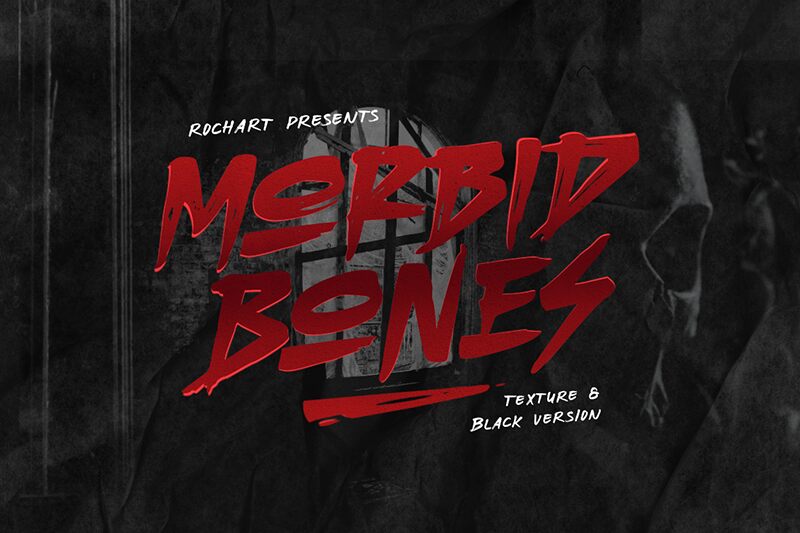
Morbid Bones (DEMO) Brush Slant
Morbid Bones Brush Slant font by Rochart Studio is a scary yet creative gothic script font featuring lines and curves that add it to the category of dramatic fonts. Inspired by hand-lettering, it therefore carries the detail and dynamics of handcrafted type scripts.
A great fit for bar and pub signs, blackboards, chalk typography pieces, product packaging designs, T-shirt designs, tattoos, food menus or logos. This free font can even decorate your postcards and banners with its decorative nature.